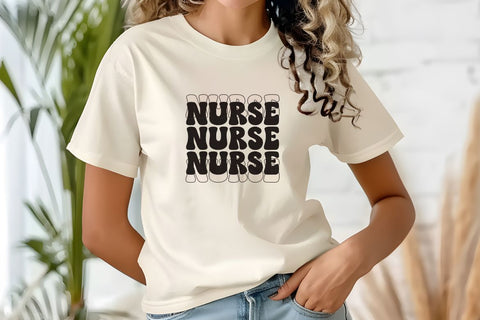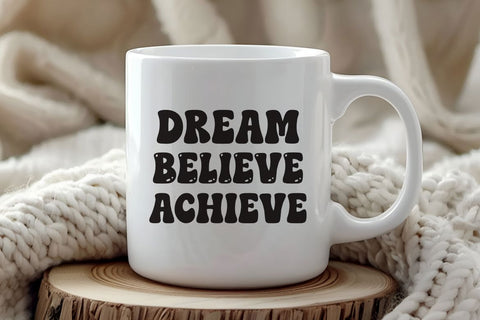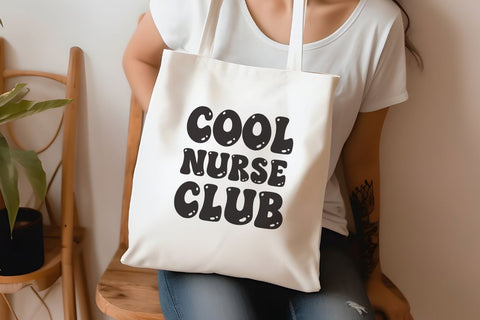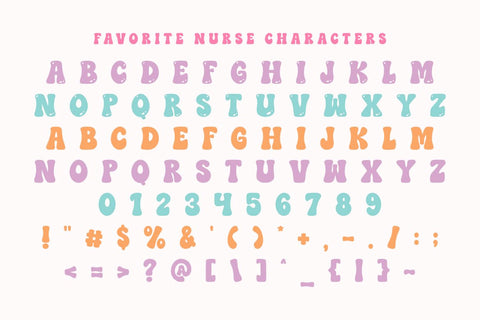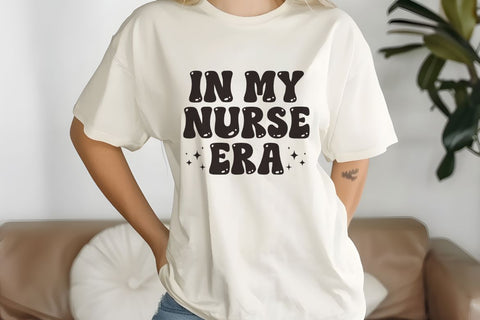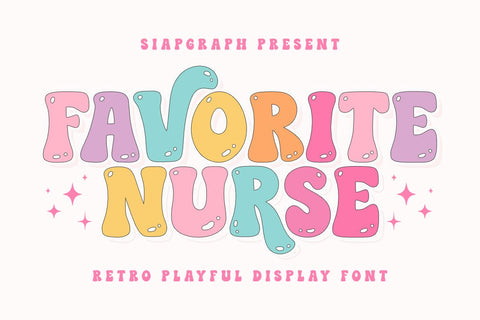
Favorite Nurse - Retro Playful Groovy Font
Favorite Nurse is a bubbly, playful, and cheerful display font inspired by the vibrant, groovy aesthetic of the 70s, perfectly blended with a kind-hearted, appreciative theme dedicated to healthcare heroes. Its smooth, rounded letters and cute, stylized curves create an instantly uplifting and friendly vibe.
This font is essential for creators targeting the Healthcare Appreciation, Medical Profession, and general Gift markets in craft, POD (Print On Demand), and DIY. Its clear and bold design makes it perfect for digital cutting, sublimation, and printing.
Perfect for: crafting SVG designs, custom nurse t-shirts, personalized tumblers and mugs for doctors/nurses, hospital staff apparel, teacher appreciation gifts, thank you cards, medical-themed stickers, cheerful branding for health clinics, and social media graphics celebrating nurses' week.
Great for holiday themes such as Nurse Appreciation Week, Graduation, Mother's Day (for nurses who are moms), and general Staff Appreciation events, adding a joyful and heartfelt touch to any project!